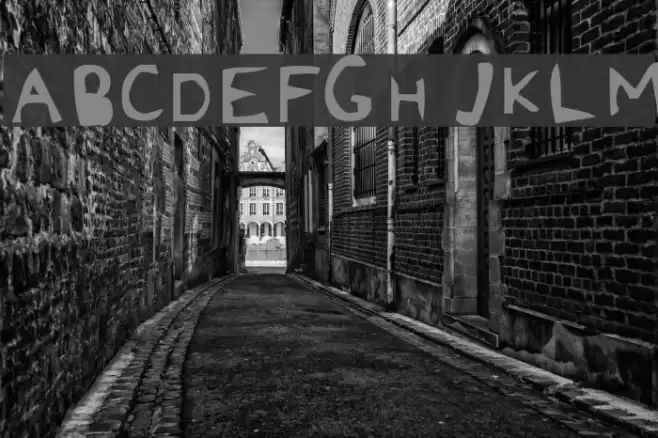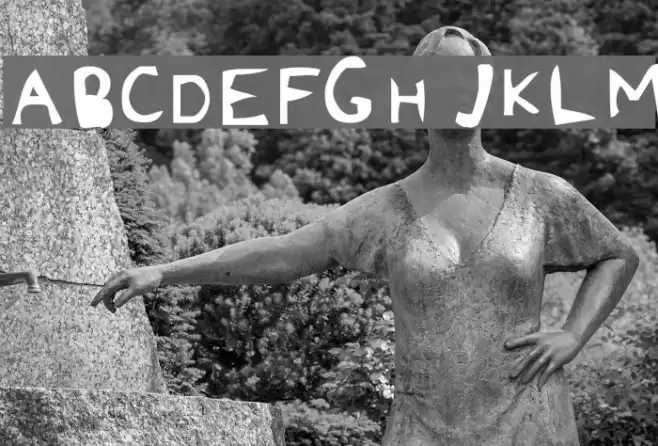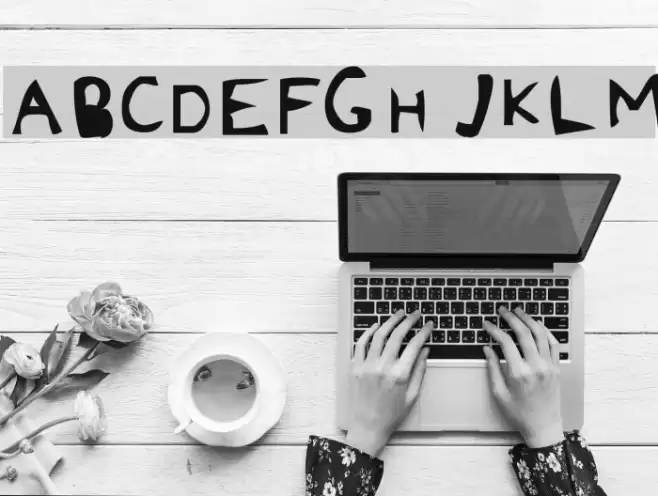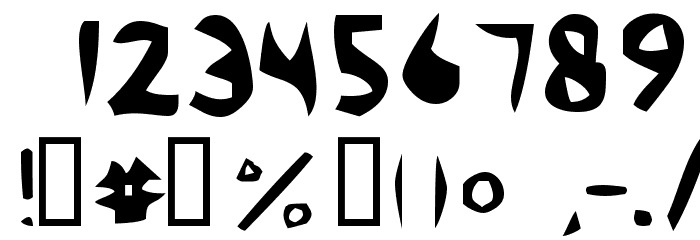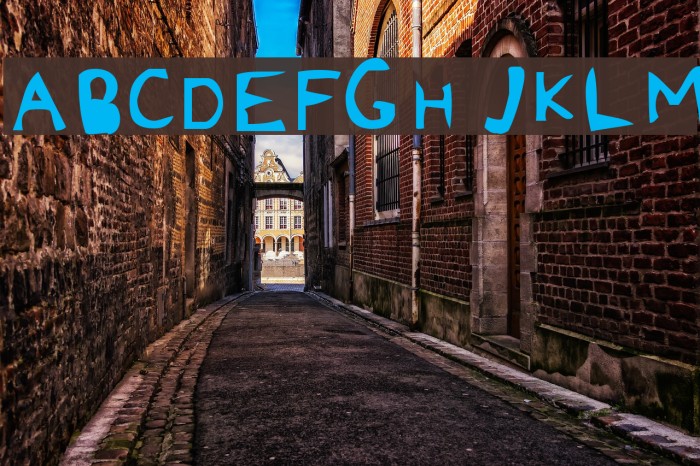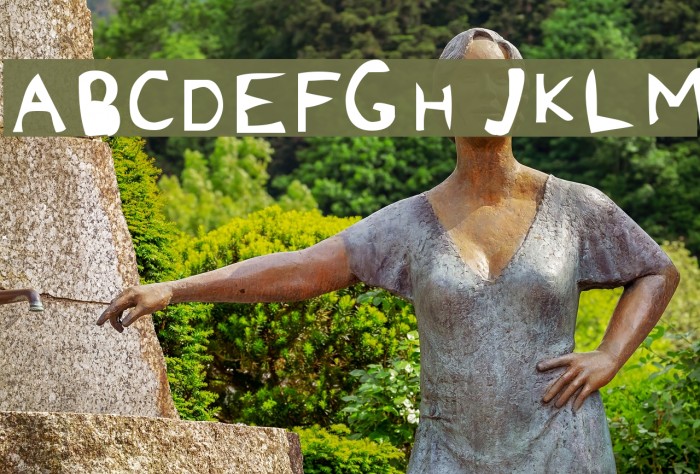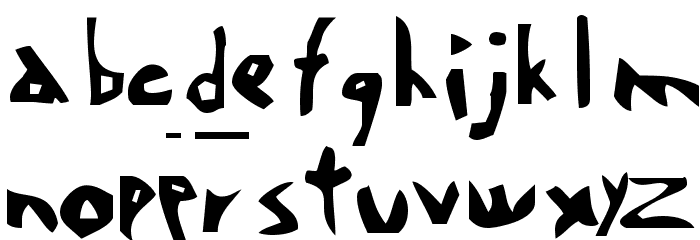
Chi Font
Chi Description
This font features a playful and dynamic style with irregular, hand-drawn characters. The uppercase letters are bold and slightly uneven, giving a sense of movement and energy. The lowercase letters maintain the same lively aesthetic, with some characters extending below the baseline. Numbers are bold and follow the same quirky design, adding to the font's unique personality. Special characters are creatively designed, enhancing the overall whimsical feel. This font is perfect for projects that require a fun and informal touch.
A playful, hand-drawn font with bold, irregular characters from Quirky fonts.